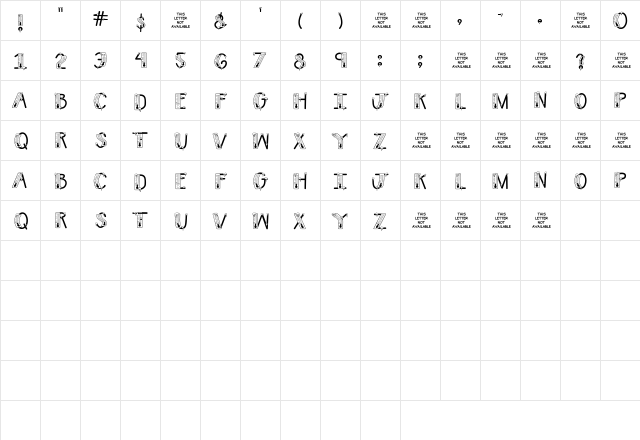
CK Freezing Regular
Design Context for CK Freezing Typeface
CK Freezing is a composed and adaptable typeface that performs quietly and consistently across a wide range of design contexts.